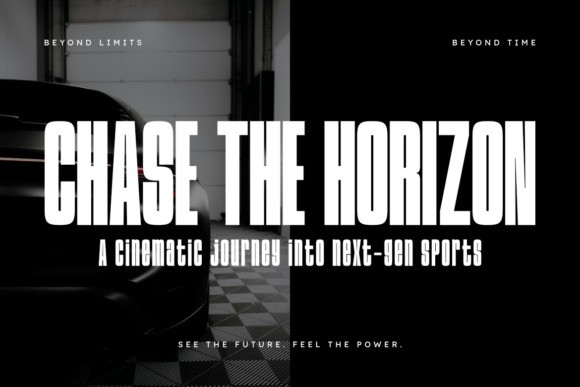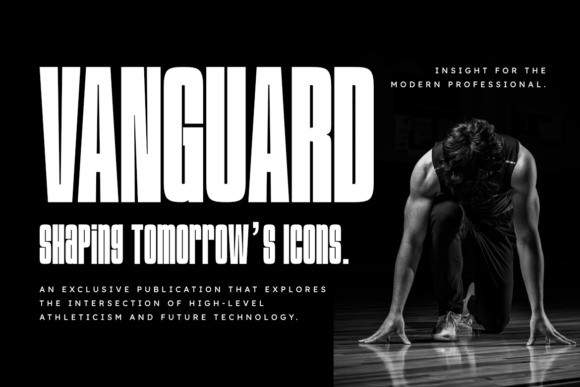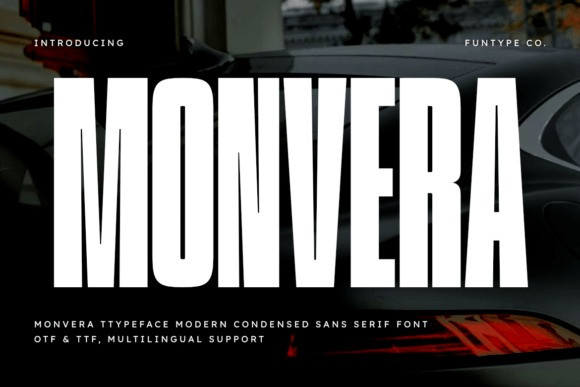
Monvera Font
Monvera Font is a bold and modern condensed sans serif typeface built for strength and impact. With its tall architecture and clean geometric design, it is perfect for creating striking headlines, professional logos, and high-performance branding.